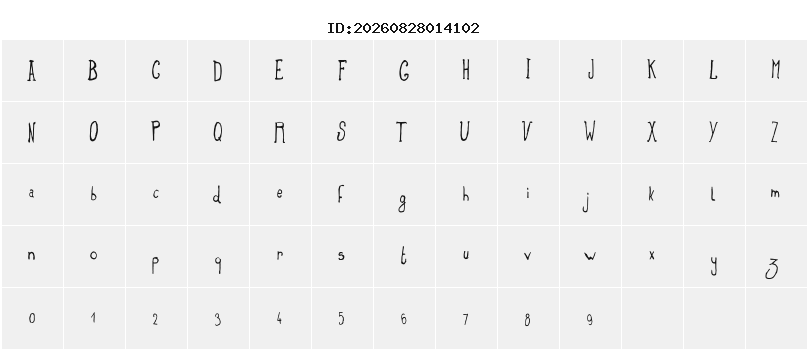
• Font Name: Truma
• Designer: Tom Delmarcel
About Truma.ttf
Truma.ttf is a modern, elegant sans-serif font designed for ultimate readability and visual harmony. Perfect for branding, headlines, web design, and print materials.